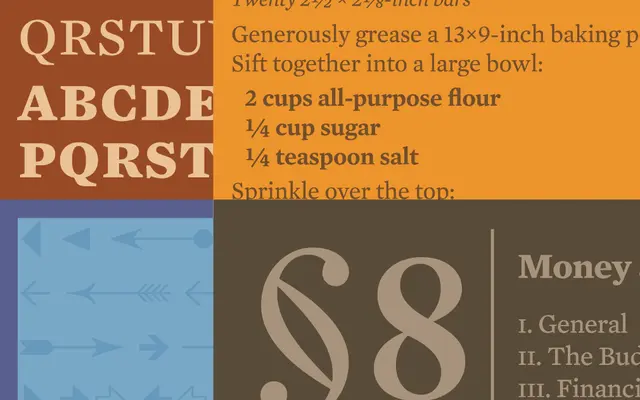
Mercury Text
Hoefler & Co · Jonathan Hoefler, Tobias Frere-Jones, and the H&Co Design Studio · 2003
A newspaper text serif drawn in four grades to hold up across different inks, papers and press conditions in high-speed printing.
A newspaper and editorial text serif by Jonathan Hoefler, Tobias Frere-Jones and the H&Co studio. It was engineered with publishers in mind, drawn in four grades that anticipate ink gain on different papers and presses so the type holds its colour from broadsheet to glossy. Roman, bold and italics in each grade make it a complete editorial workhorse for newspapers, magazines and long-form digital text.
A newspaper and editorial text serif engineered for high-speed printing on uncoated stock, drawn in four grades to compensate for ink gain and press conditions.